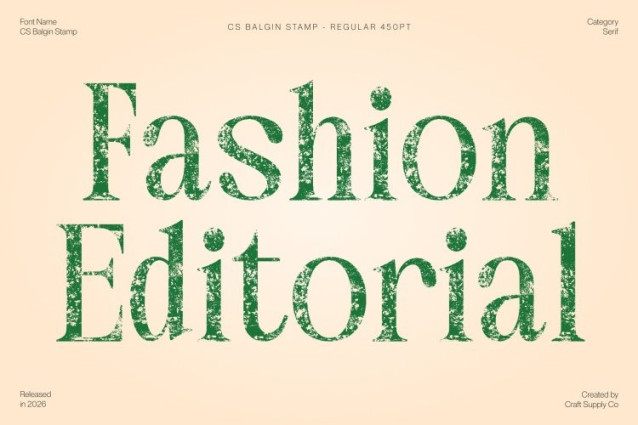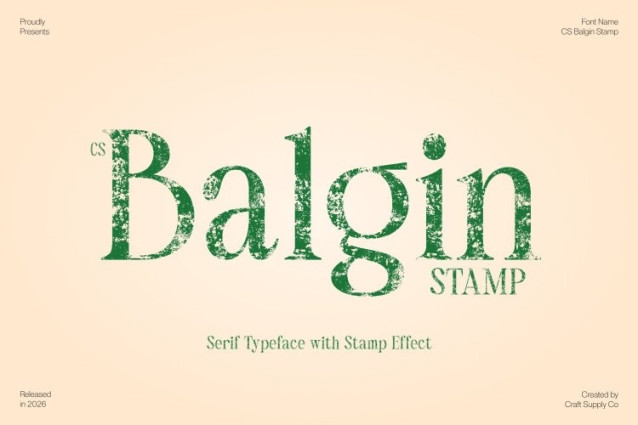
CS Balgin Stamp Font
CS Balgin Stamp Font This is a modern classic serif font that embodies refinement, now enriched with a distinctive stamp texture. Its balanced proportions, fine contrast, and sharp details radiate timeless luxury, while the stamped finish introduces a subtle vintage depth that adds warmth and artistic character. The result is a typeface that feels both prestigious and expressive.
Delicate Serifs with Textured Elegance
Featuring slender letterforms and refined serifs, this font balances tradition and modernity with effortless grace. The contrast between thick and thin strokes remains polished and elegant, while the stamp effect brings a handcrafted, print-inspired nuance that enhances its exclusivity without overpowering its sophistication.
Luxury Appeal with Artistic Depth
The refined curves and sharp transitions create a poised and high-end presence, ideal for fashion editorials, premium packaging, wedding invitations, and upscale branding. The subtle distressed texture gives the font a timeless authenticity, reminiscent of classic print techniques and heritage design.
Perfect for High-End Branding and Editorial Design
Whether used for logos, elegant headlines, luxury campaigns, or editorial layouts, this font elevates visual compositions with class and character. Its fusion of modern classic structure and vintage stamp texture ensures a distinguished, memorable, and enduring impression.